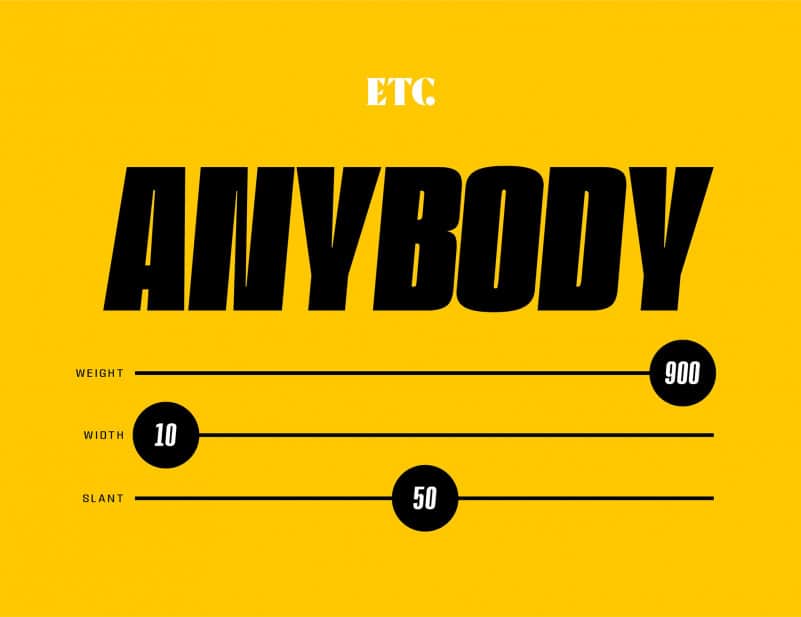
ETC Anybody Font Family
ETC Anybody Font Family is an extended variable width sans serif typeface. The uppercase alphabet in each font / style has been ultra extended to allow for easy customization and creative control of character widths.
It’s a mega-family of 72 styles, or whatever custom tweaked style you want with 3 variable axes. It’s was released in October of 2018 under the foundry Etcetera Type Company. Variable fonts are still pretty fresh but I love making them. This particular typeface contains 3 axes: weight, width, slant.